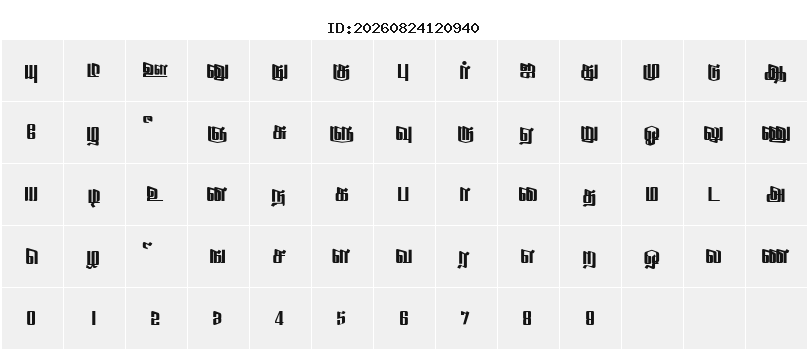
Sahaanaa Preview
• Font Name: Sahaanaa
• Font ID: Altsys Fontographer 3.5 Sahaanaa Regular
• Full Font Name: Sahaanaa Regular
• Version: Altsys Fontographer 3.5 1/31/95
• PostScript Name: Sahaanaa Regular
• Character Count: 103
About Sahaanaa.ttf
Sahaanaa.ttf is a modern, elegant sans-serif font designed for ultimate readability and visual harmony. Perfect for branding, headlines, web design, and print materials.